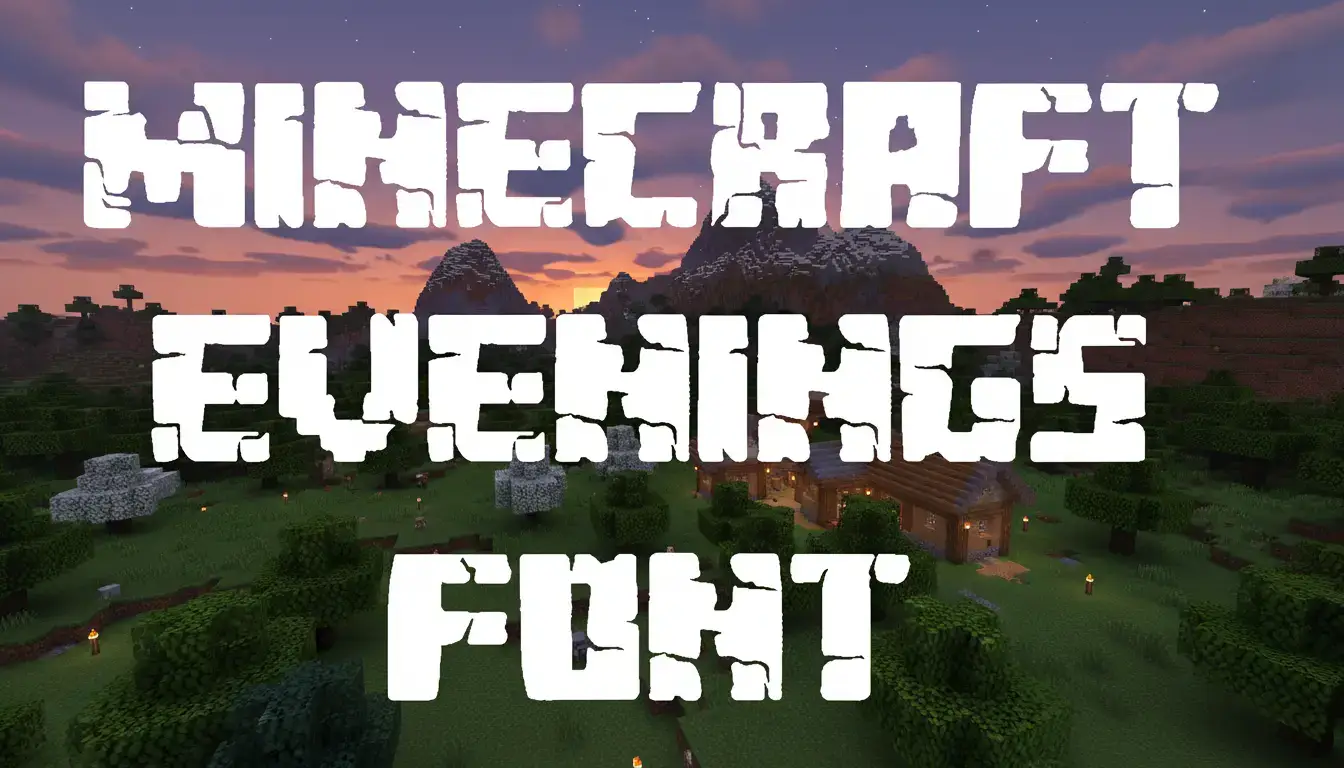
Minecraft Evenings Font
Minecraft Evenings
Minecraft Evenings Font Details
What You Can Type With Minecraft Evenings
With complete upper and lowercase letters and all ten digits, Minecraft Evenings is ready for real wording, not just a single headline. Everyday marks like &, !, ? and $ are there too. There are no accented letters like é or ñ, so it's best kept to English text.
Where Minecraft Evenings Works Best
Minecraft Evenings is a natural fit for posters, logos and eye-catching headlines. Use it for one standout word or headline and let simpler fonts handle the rest.